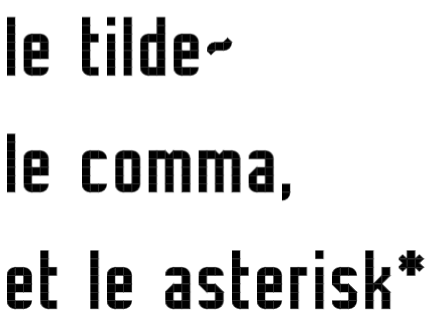
Currently the most complete and accomplished FontStruction. Congratulations.
Those who haven't scrolled through the entire character set are missing a classic San Francisco treat.
“Please exit to the rear door …”
Totally had this idea last night. I'm glad to see the guy who beat me to it did an awesome job!
Extra points for the large character set ;)
Looks like a variant of Geascript. I just fonstructed the ‘38’ variant.
Love these characters
I haven't been to S.F. myself, but this font is wonderful!
*clapping*